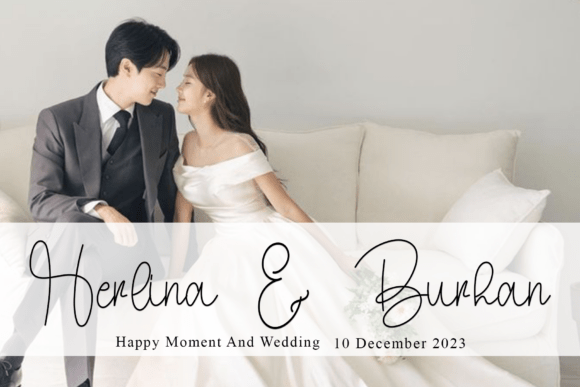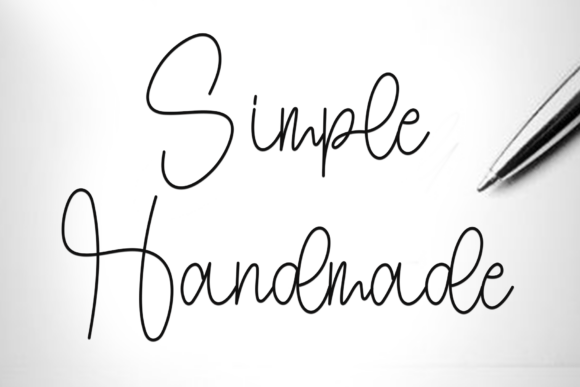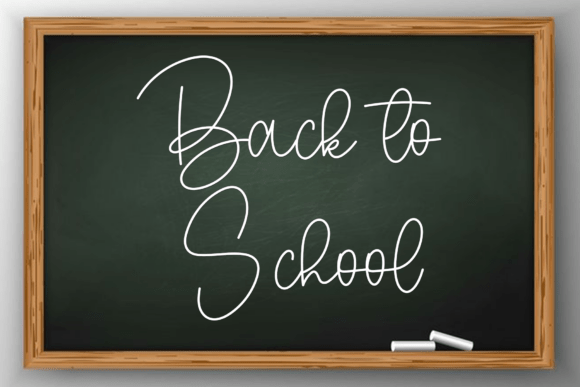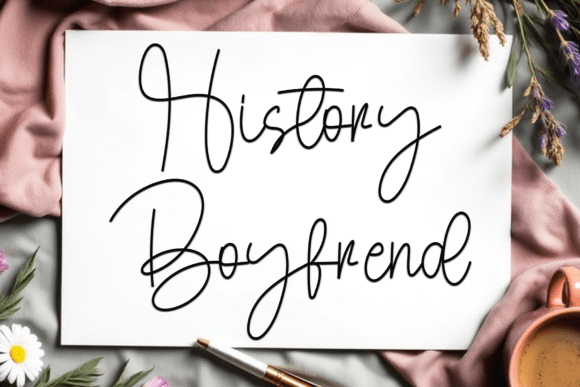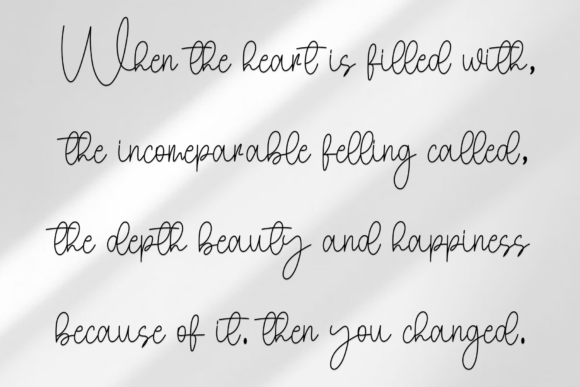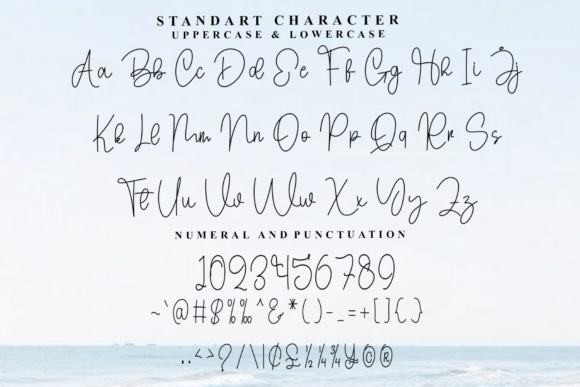
Introduction to Magnolia Beautiful Font
Magnolia Beautiful is a festive and merry typeface that captures the spirit of the holiday season.
Key Features of Magnolia Beautiful Font
Why Choose Magnolia Beautiful Font?
Magnolia Beautiful Font offers exceptional quality and versatility, making it a valuable addition to your design toolkit. Whether you’re creating for personal projects or commercial use, Magnolia Beautiful Font delivers professional results.